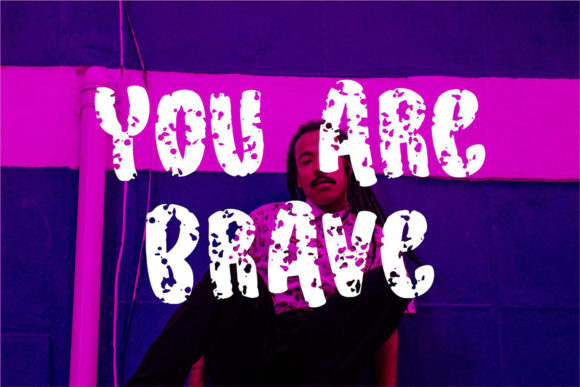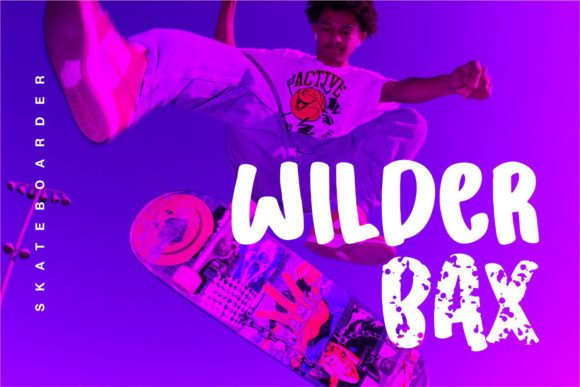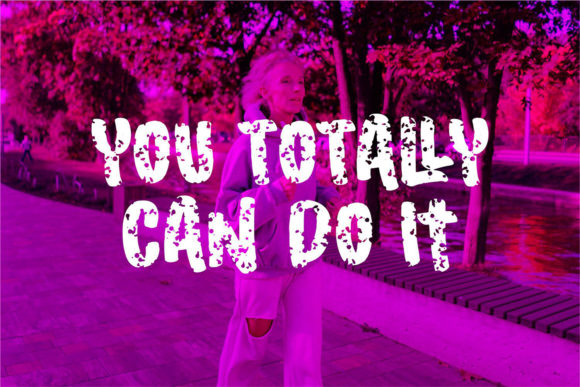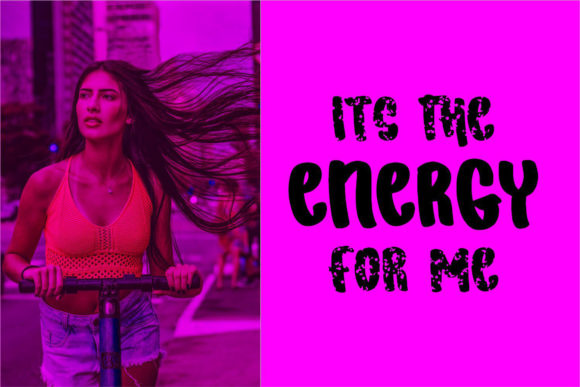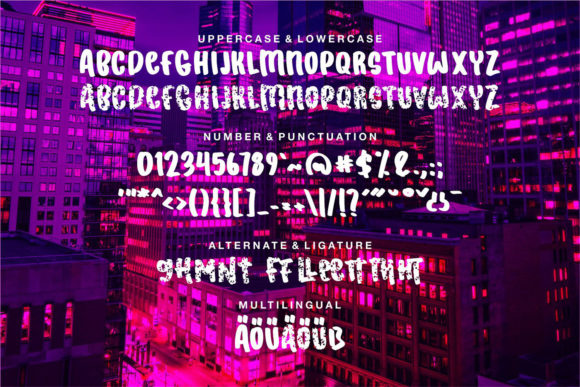
Gelli Font: The Perfect Addition to Your Design Arsenal
Are you a designer or crafter looking for a unique and stylish font to elevate your creative projects? Look no further than Gelli Font! This cool brush display font is perfect for adding a touch of elegance and sophistication to your invitations, greeting cards, branding materials, business cards, quotes, posters, and more.
What is Gelli Font?
Gelli Font is a beautifully crafted brush display font that features a unique and stylish design. With its smooth and flowing lines, this font is sure to add a touch of personality to any project. Whether you’re creating a wedding invitation, a business card, or a poster, Gelli Font is the perfect choice.
Key Features of Gelli Font
• Unique and Stylish Design: Gelli Font features a one-of-a-kind design that is sure to make your projects stand out.
• Brush Display Font: This font is perfect for creating eye-catching headlines and titles.
• High-Quality Design: Gelli Font is designed with high-quality and precision, ensuring that it looks great in any size or resolution.
Uses for Gelli Font
Gelli Font is a versatile font that can be used for a wide range of projects, including:
• Invitations: Add a touch of elegance and sophistication to your wedding invitations, birthday invitations, and more.
• Greeting Cards: Create beautiful and unique greeting cards for any occasion.
• Branding Materials: Use Gelli Font to create eye-catching logos, business cards, and other branding materials.
• Posters: Add a touch of personality to your posters and flyers with Gelli Font.
• Quotes and Inspirationals: Create inspiring and motivational quotes and posters with Gelli Font.
Why Choose Gelli Font?
There are many fonts to choose from, but Gelli Font stands out from the rest. Here are just a few reasons why:
• Unique Design: Gelli Font features a unique and stylish design that is sure to make your projects stand out.
• High-Quality: This font is designed with high-quality and precision, ensuring that it looks great in any size or resolution.
• Versatile: This font can be used for a wide range of projects, from invitations and greeting cards to branding materials and posters.
Tips for Using Gelli Font
Here are a few tips for getting the most out of Gelli Font:
• Use it as a Headline Font: Gelli Font is perfect for creating eye-catching headlines and titles.
• Experiment with Colors: Try using Gelli Font in different colors to add a touch of personality to your projects.
• Pair it with Other Fonts: Gelli Font pairs well with a variety of other fonts, so don’t be afraid to experiment with different combinations.
Gelli Font is a unique and stylish brush display font that is perfect for designers and crafters looking to add a touch of elegance and sophistication to their projects. With its high-quality design, ease of use, and versatility, Gelli Font is the perfect addition to your design arsenal. So why wait? Download Gelli Font today and start creating beautiful and unique projects!